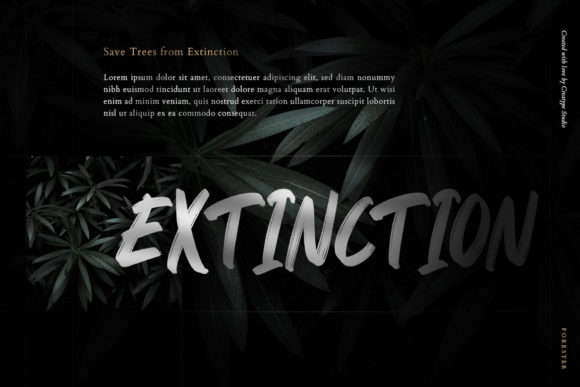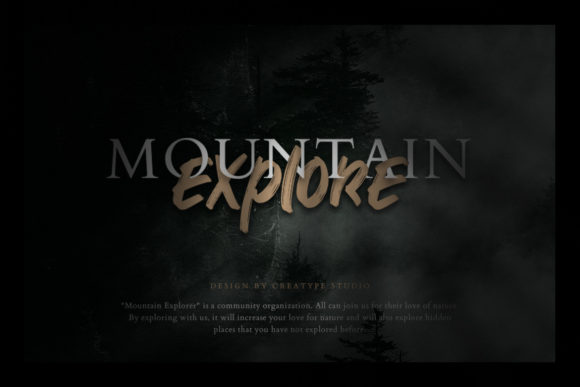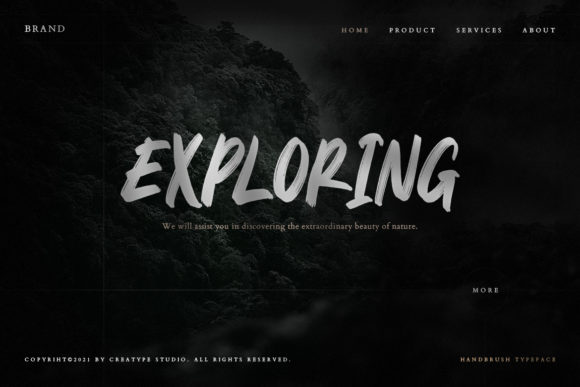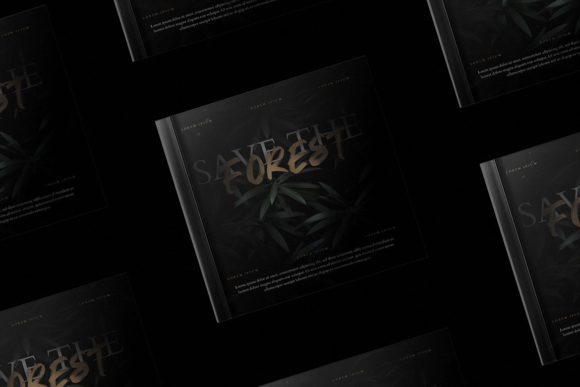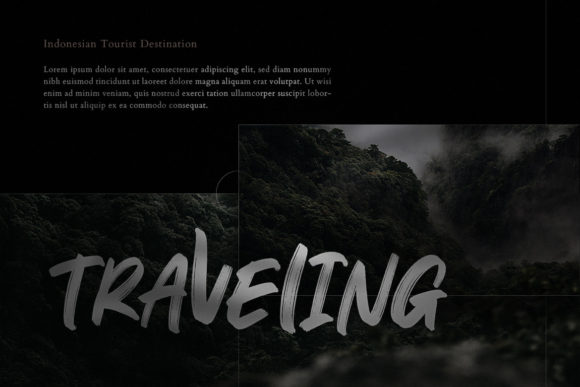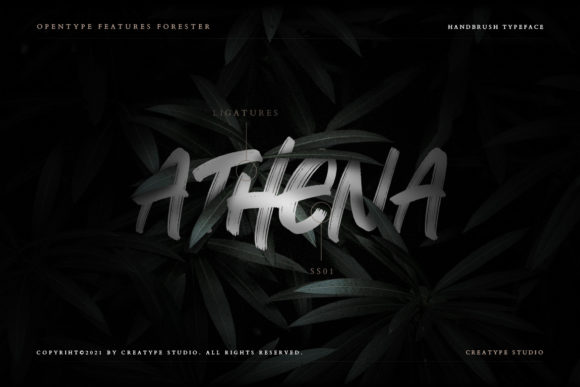
Introducing Forester Font: The Ultimate Display Font for Creative Projects
Are you tired of using the same old fonts for your design projects? Look no further than Forester Font, a cool and brushed display font that’s perfect for adding a touch of natural elegance to your masterpieces. With its distinctive strokes and adaptable design, Forester Font is ideal for a wide range of creative applications, from branding and logos to wedding designs and social media posts.
What Makes Forester Font So Special?
Forester Font is a unique and stylish display font that’s designed to add a touch of sophistication to your designs. Its distinctive strokes give it a natural, hand-crafted look that’s perfect for creating eye-catching headlines, titles, and logos. The font’s adaptability makes it easy to use in a variety of contexts, from digital designs to print materials.
Forester Font is a versatile font that’s perfect for a wide range of design projects, including:
- Branding projects: Use Forester Font to create a unique and memorable brand identity that sets you apart from the competition.
- Logos: Forester Font’s distinctive strokes make it perfect for creating eye-catching logos that grab attention.
- Wedding designs: Add a touch of elegance to your wedding designs, including invitations, programs, and decorations.
- Social media posts: Use Forester Font to create eye-catching social media posts that stand out from the crowd.
- Advertisements: Forester Font’s bold and stylish design makes it perfect for creating effective advertisements that grab attention.
- Product packaging: Use Forester Font to add a touch of style and sophistication to your product packaging.
- Product designs: Forester Font is perfect for creating eye-catching product designs that showcase your brand’s personality.
- Labels: Use Forester Font to create stylish and informative labels that add a touch of elegance to your products.
Why Choose Forester Font?
There are many reasons why Forester Font is the perfect choice for your design projects. Here are just a few:
- Unique and stylish design: Forester Font’s distinctive strokes and adaptable design make it a standout font that’s sure to grab attention.
- High-quality design: Forester Font is designed to the highest standards, ensuring that it looks great in any context.
- Versatile: Forester Font can be used in a wide range of design projects, from digital designs to print materials.
Tips for Using Forester Font
Here are a few tips for getting the most out of Forester Font:
- Use it sparingly: Forester Font’s bold and stylish design makes it perfect for headlines and titles. Use it sparingly to create a greater impact.
- Experiment with different colors: Forester Font looks great in a variety of colors. Experiment with different colors to find the one that works best for your design.
- Pair it with other fonts: Forester Font can be paired with other fonts to create a unique and stylish design. Experiment with different font combinations to find the one that works best for your project.